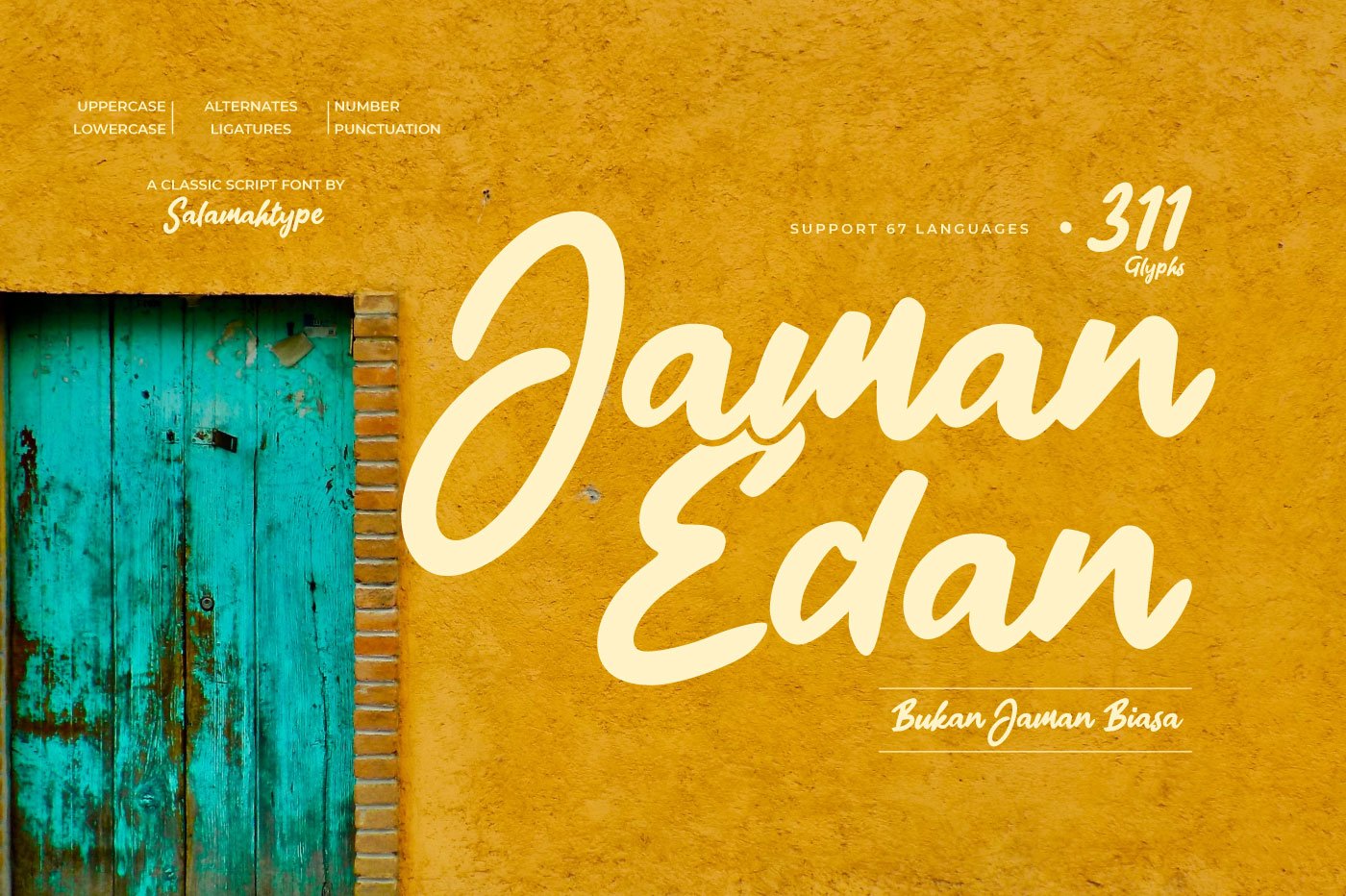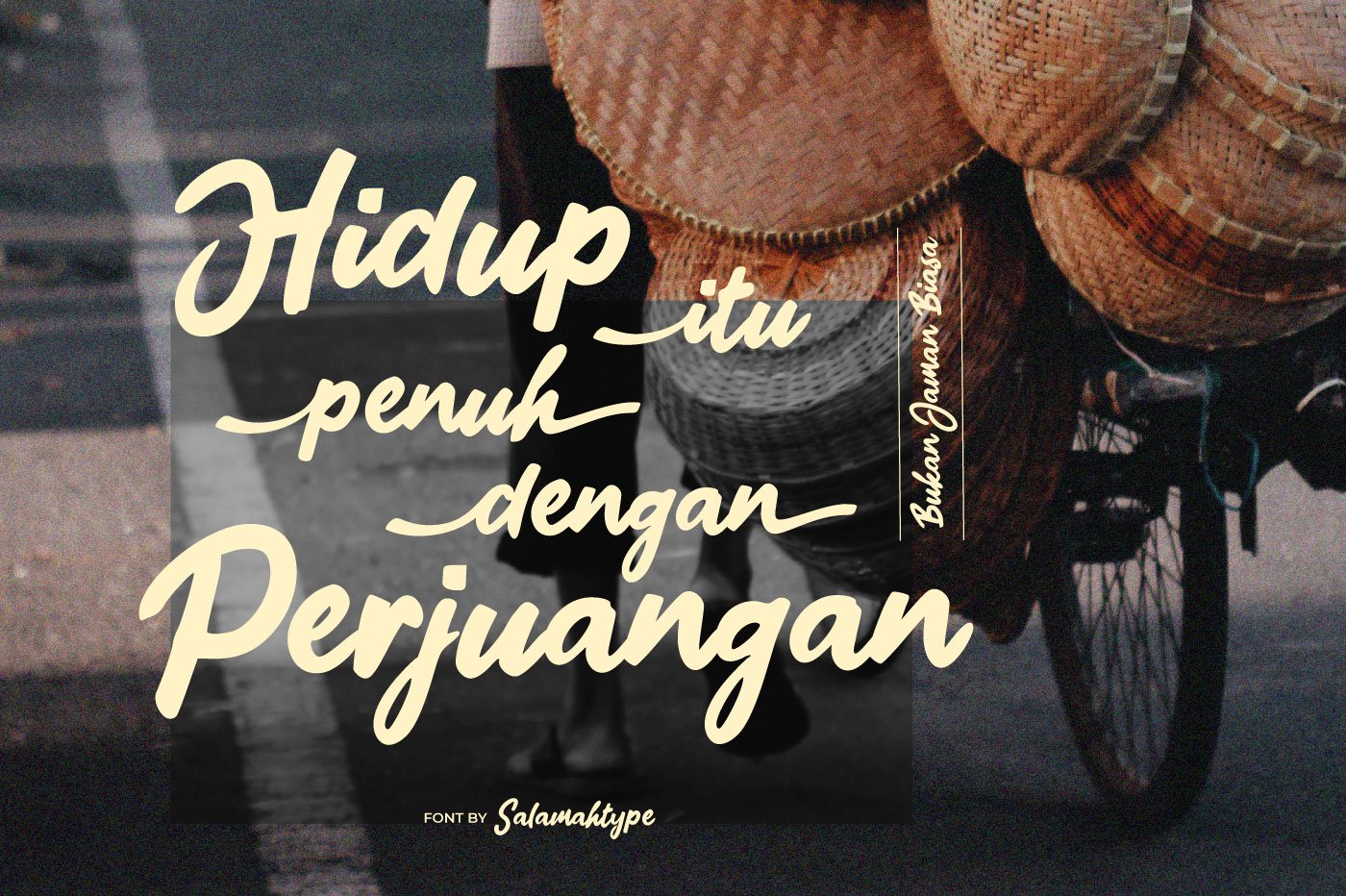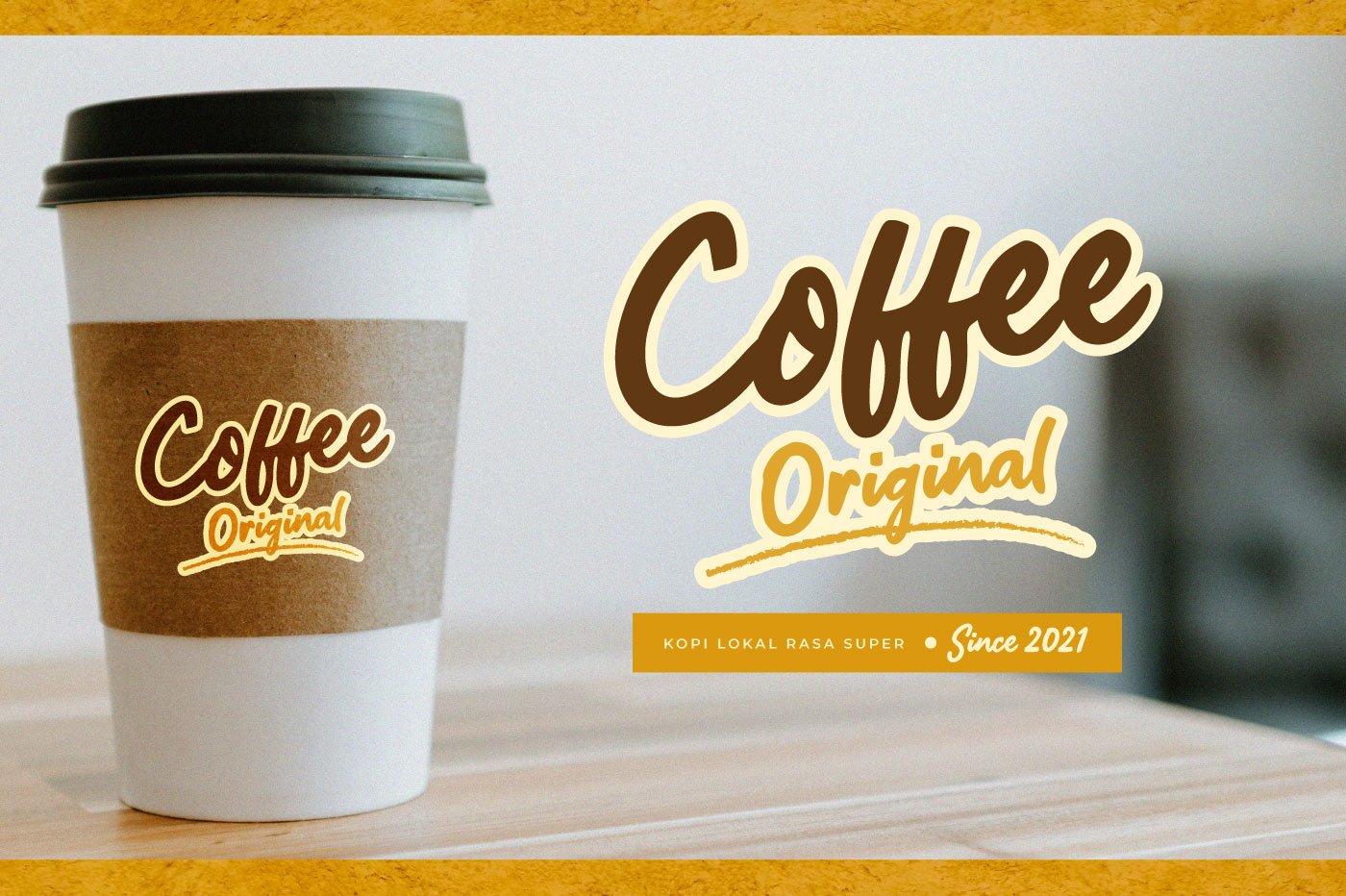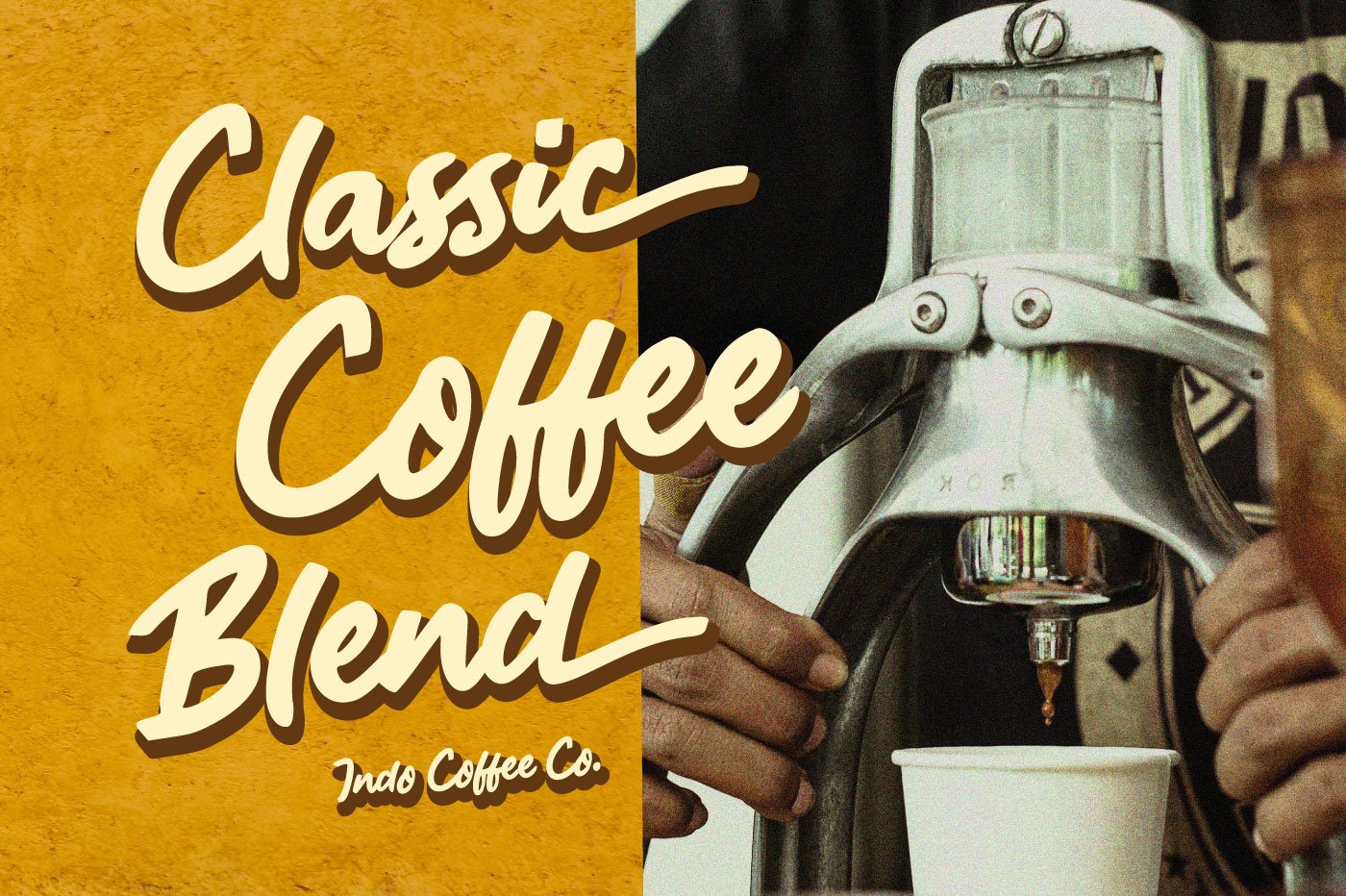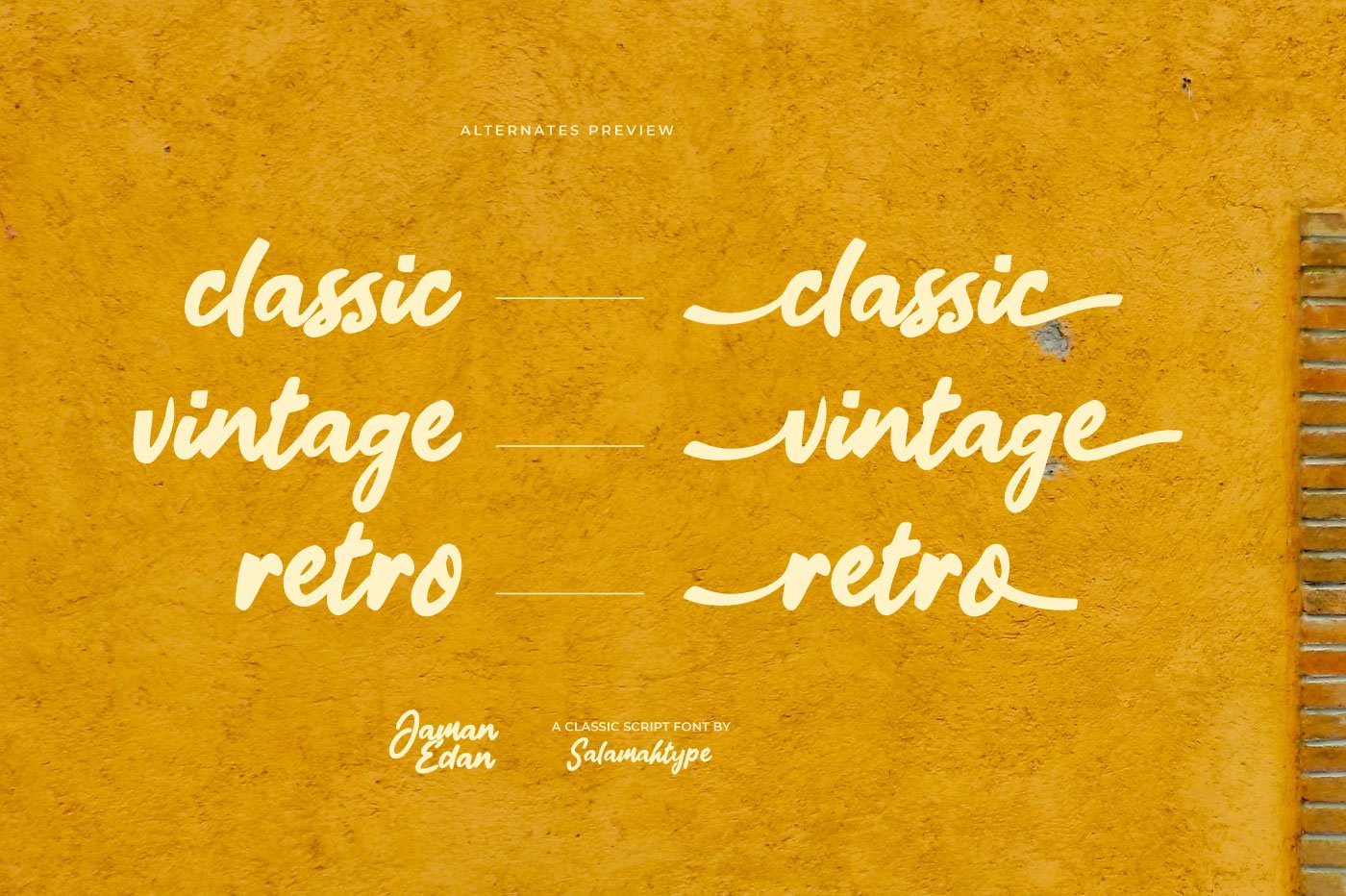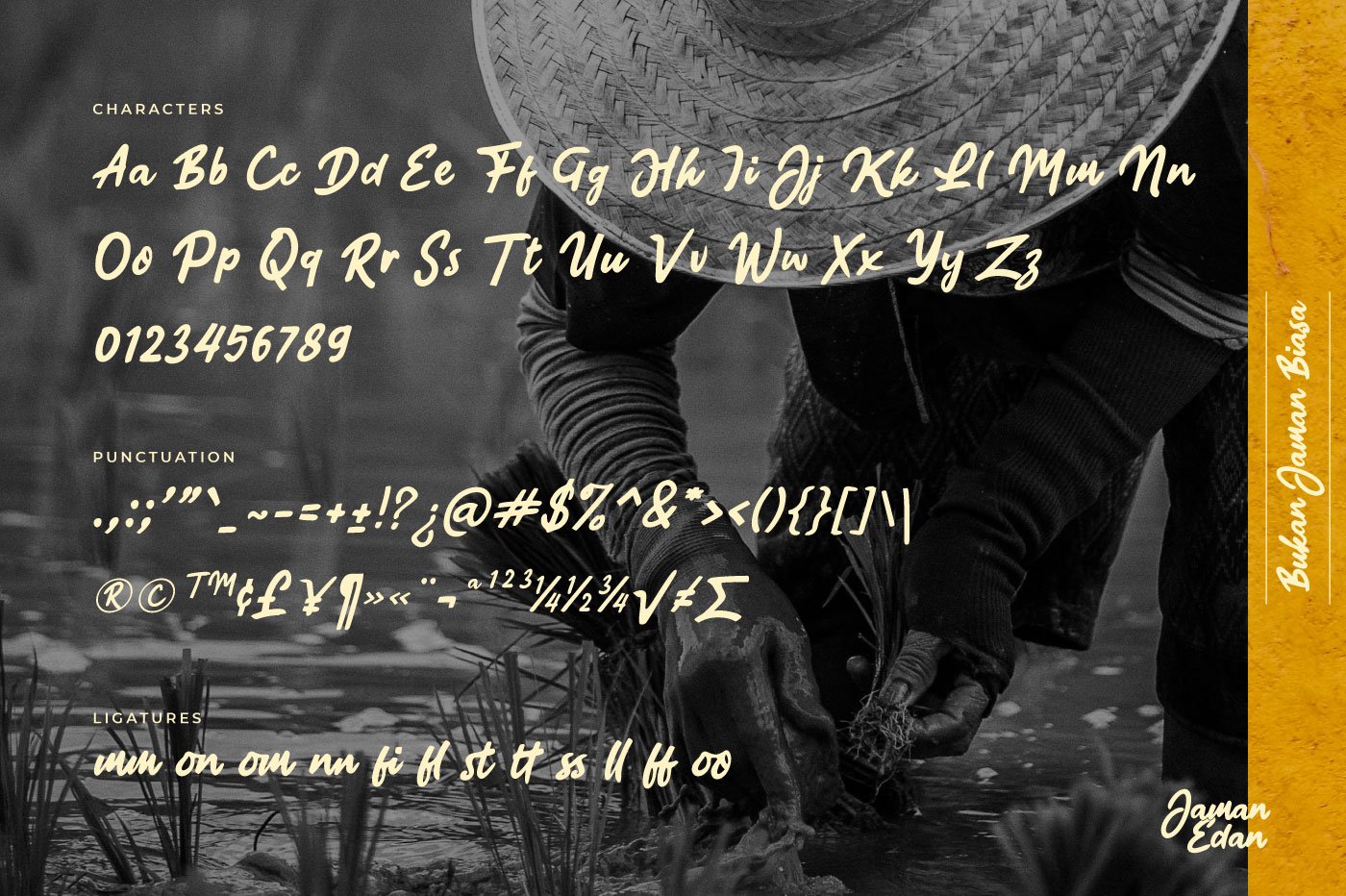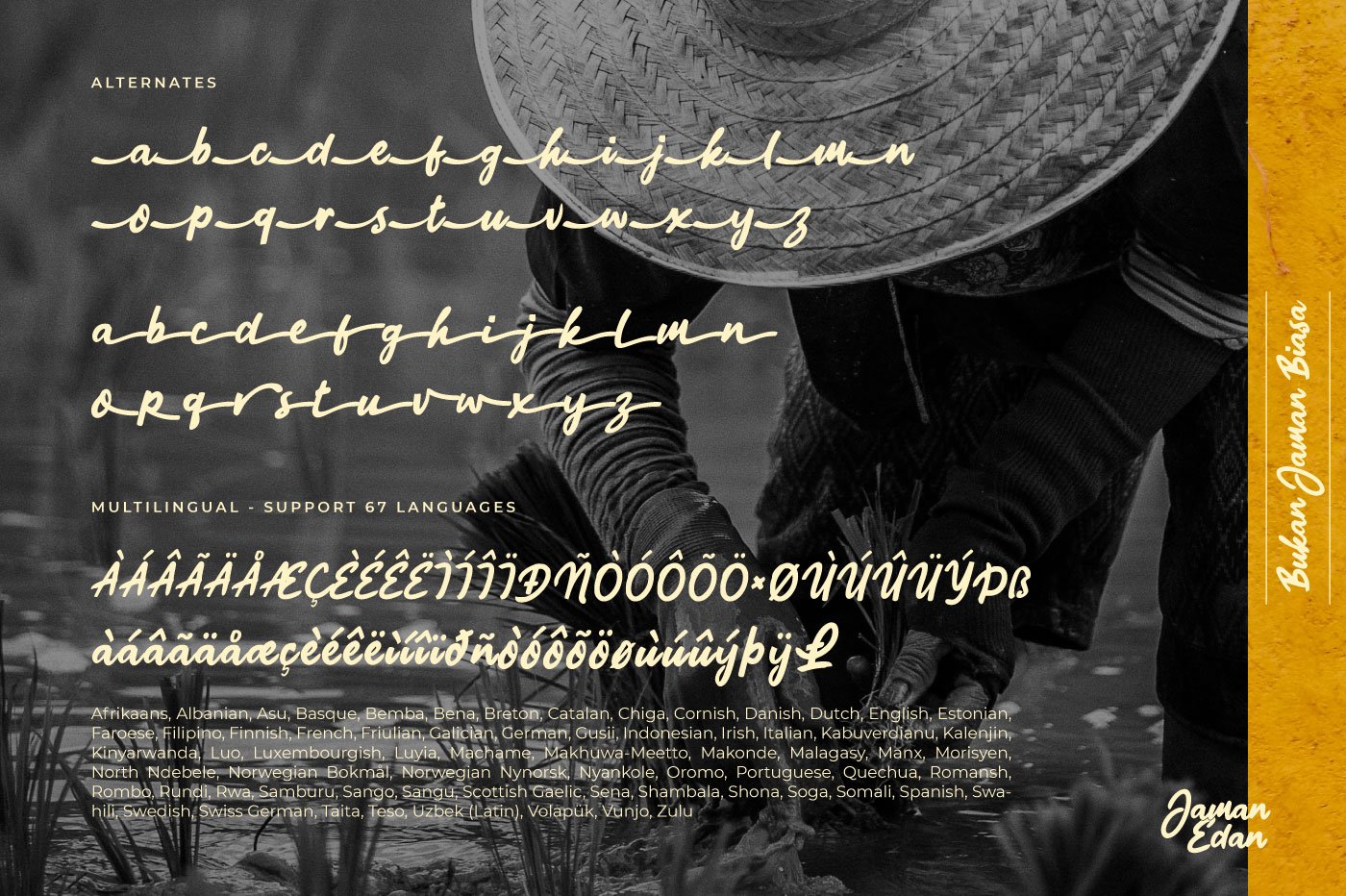
- Ligatures and Alternates
Jaman Edan Script Preview
Jaman Edan Script
Jaman Edan Font is a script font with classic style. This font is perfect for logo, website/store, watermark, stationery, posters, flyers, social media posts, advertisements, product packaging, branding projects, product designs, label, photography, and so much more.What’s Included :